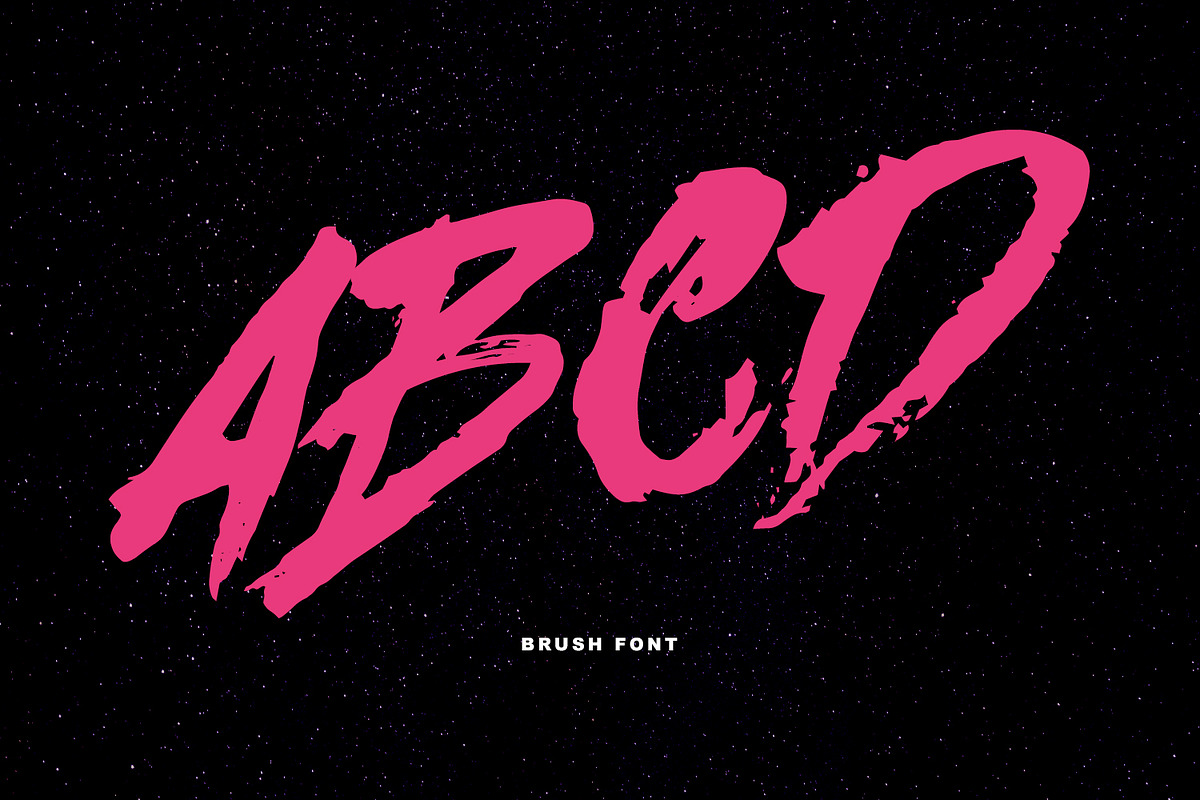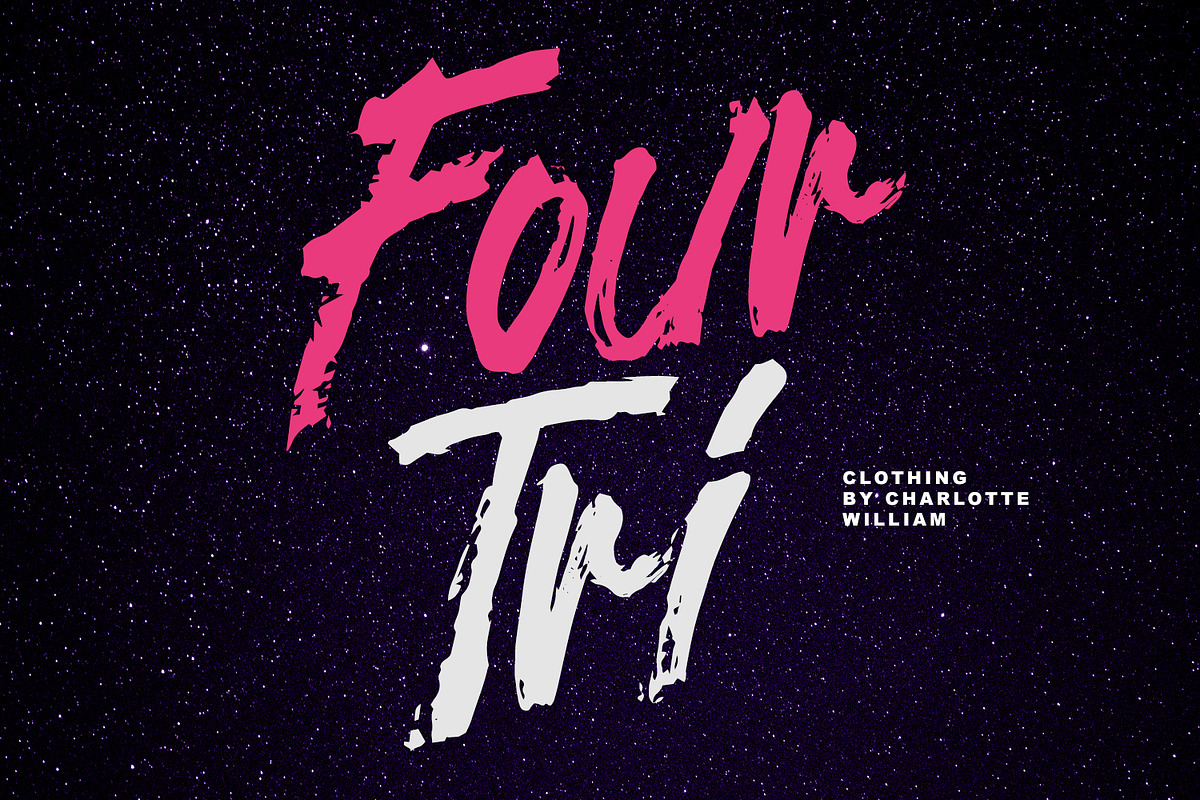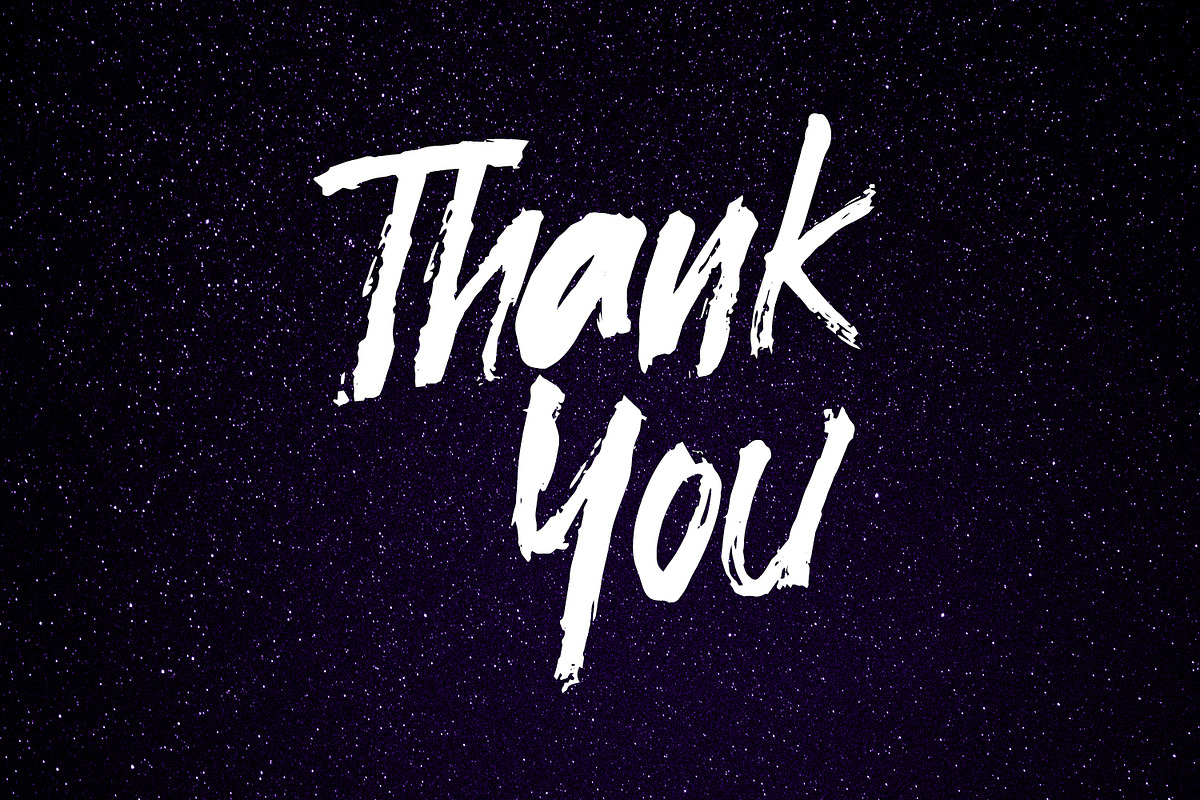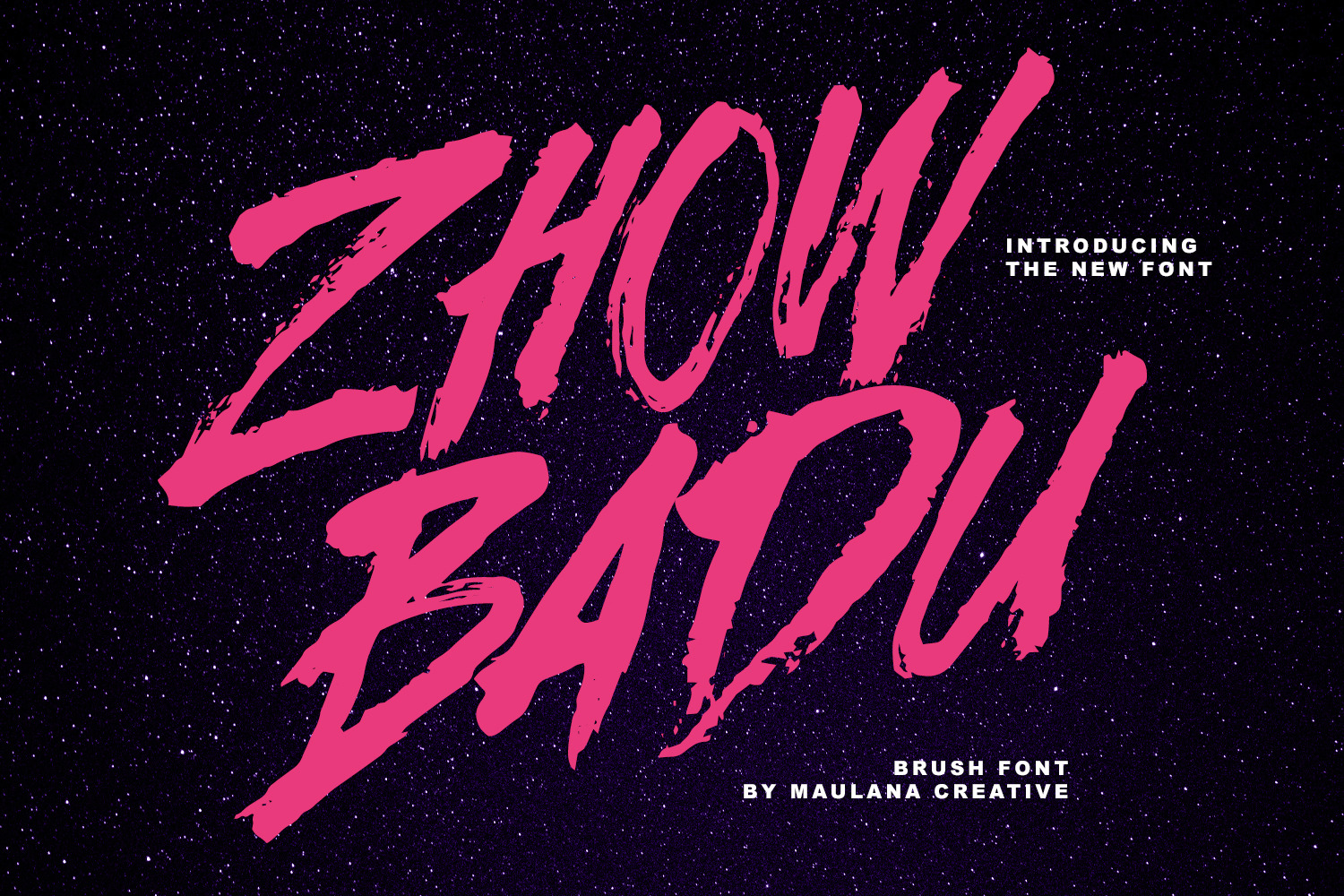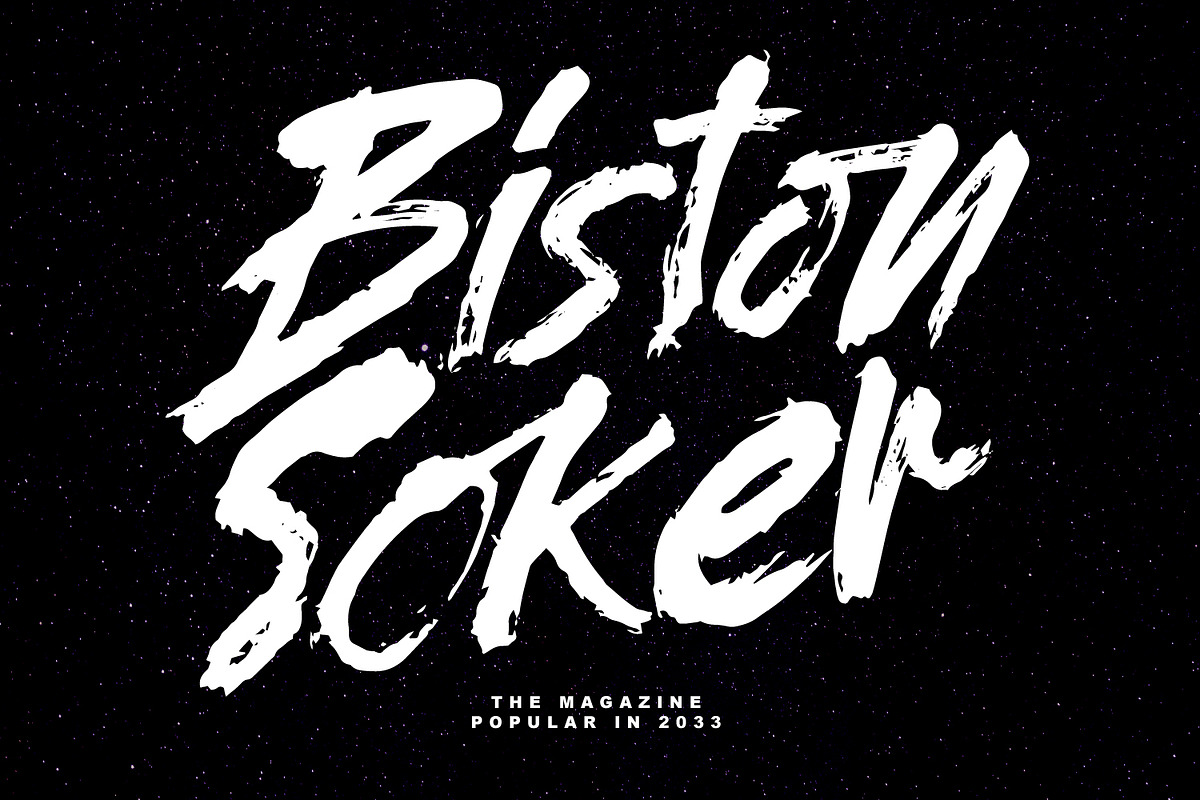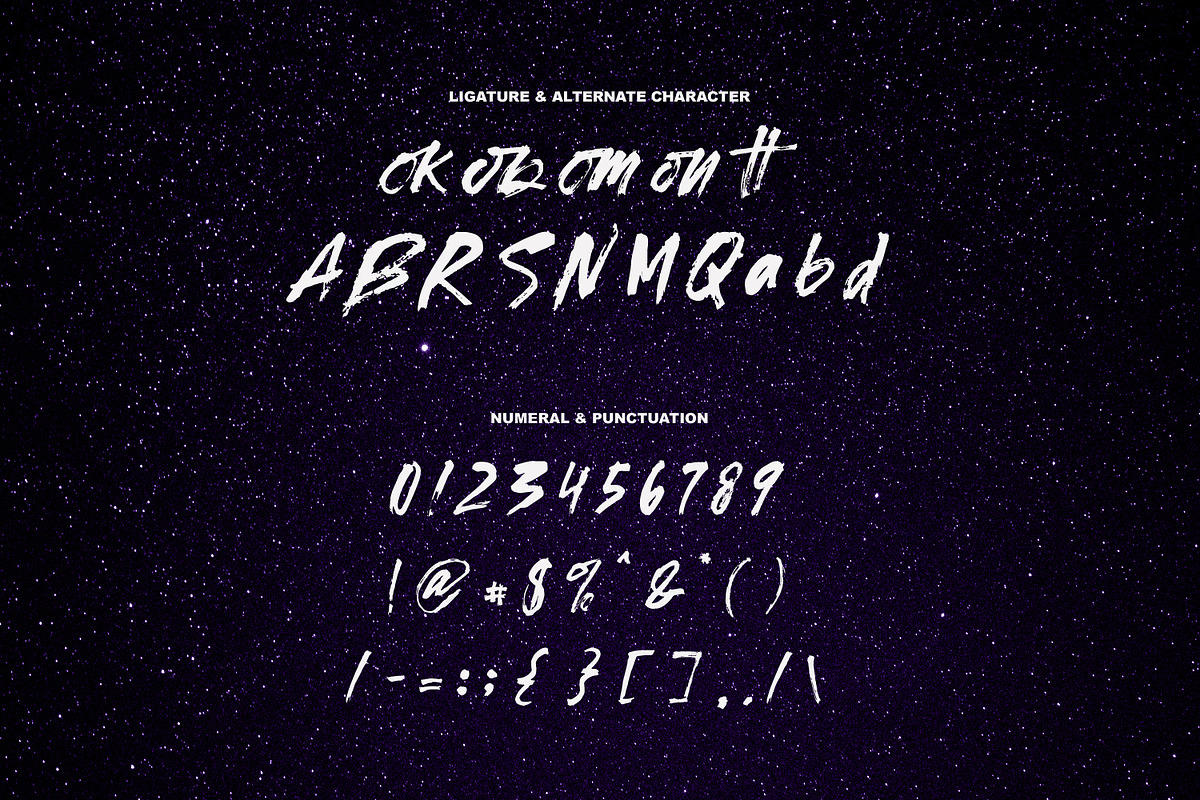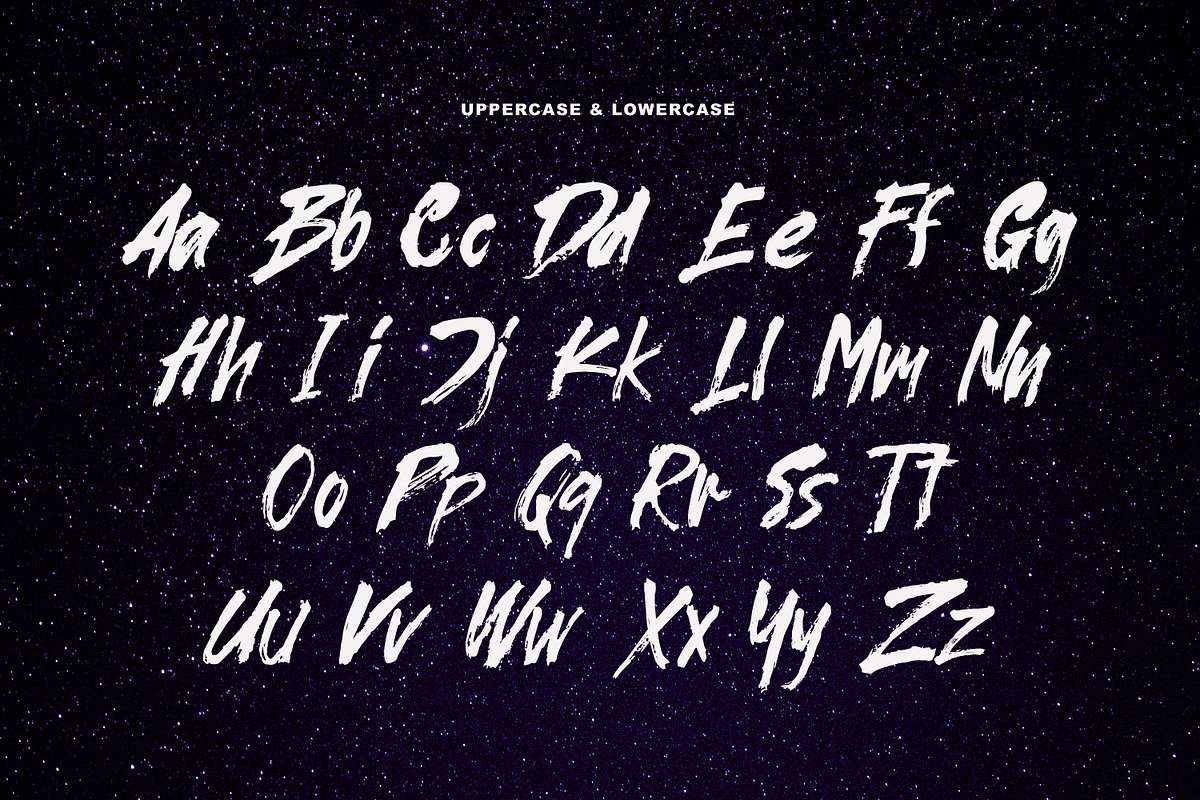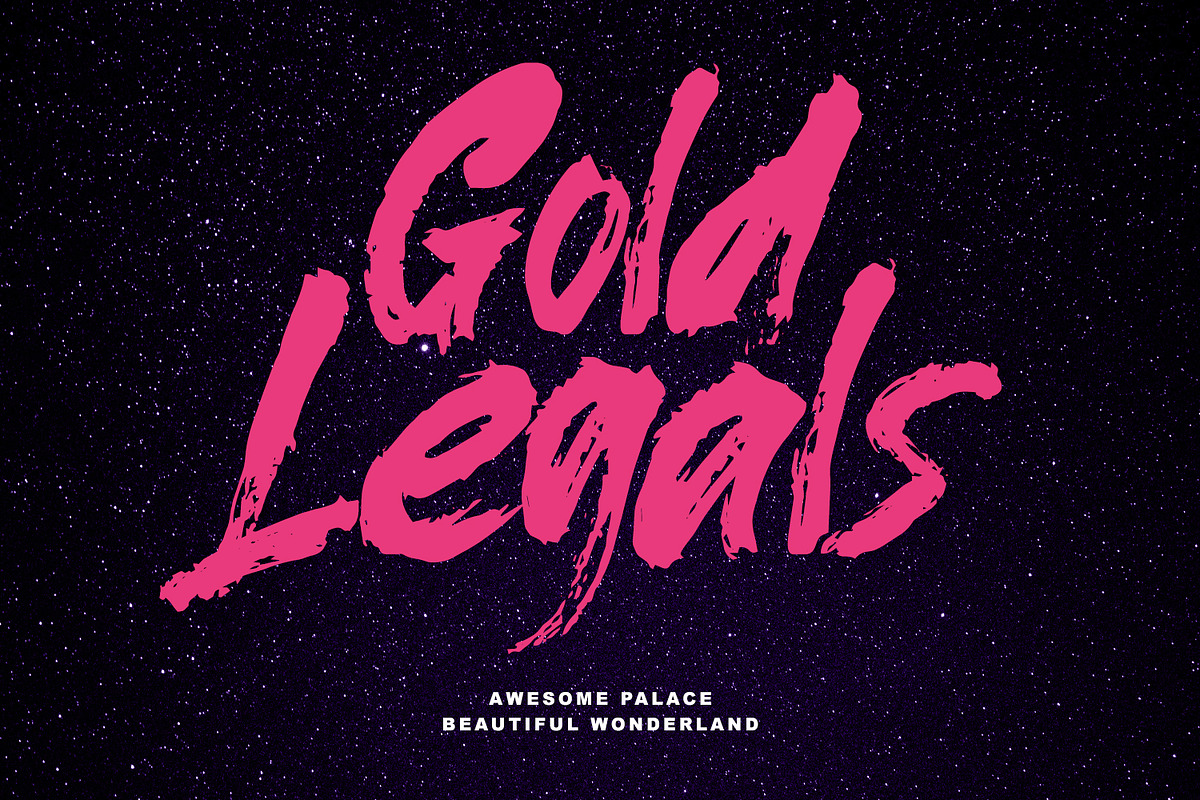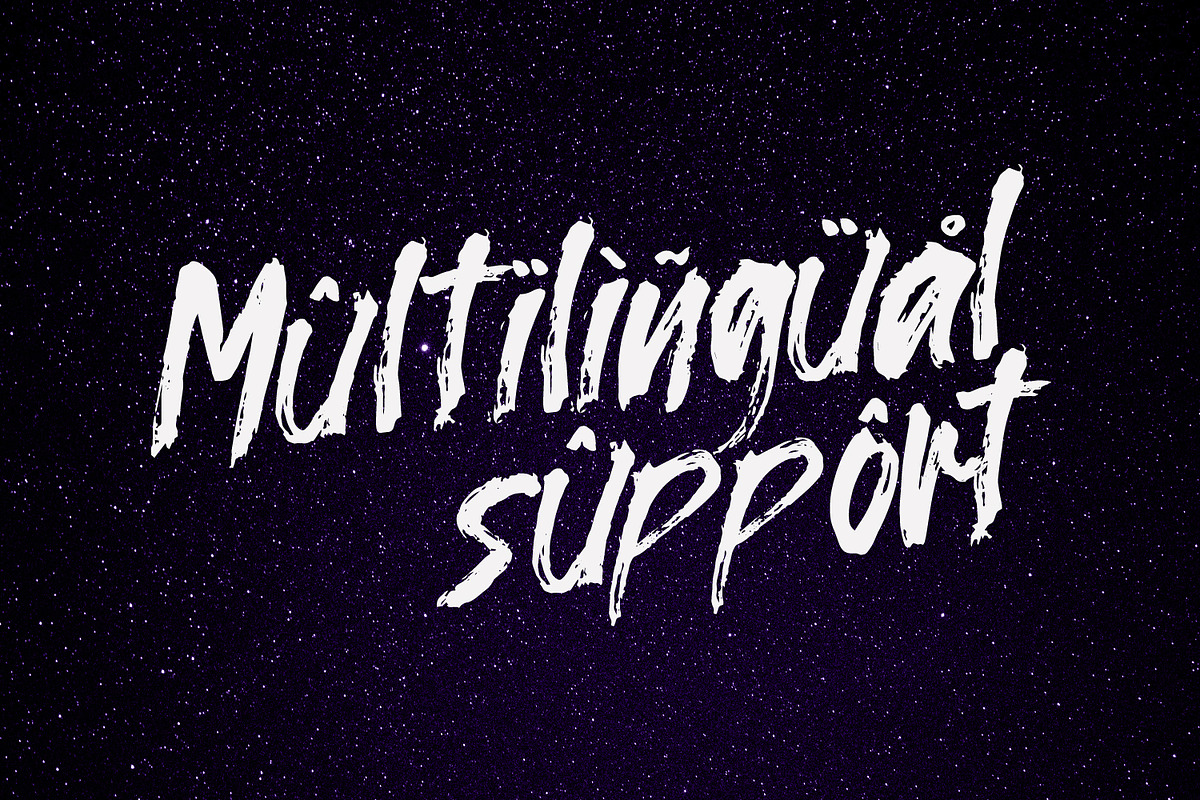
Zhow Badu Handmade Brush Font
Give your designs an authentic handcrafted feel. “Zhow Badu Handmade Brush Font” is perfectly suited to signature, stationery, logo, typography quotes, magazine or book cover, website header, clothing, branding, packaging design and more.